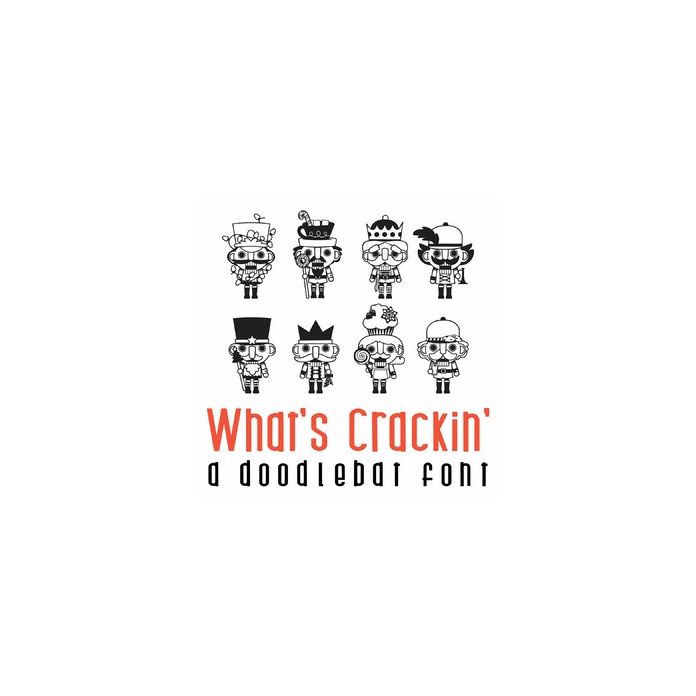
This fun doodlebat font features 26 adorable nutcrackers perfect for the holidays. Perfect for cards, gifts, decor, crafts, scrap book pages, planner stickers and more!